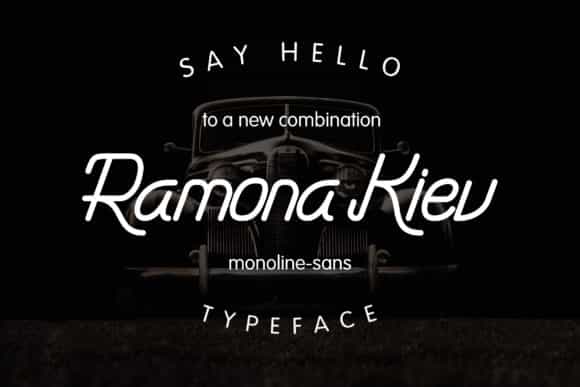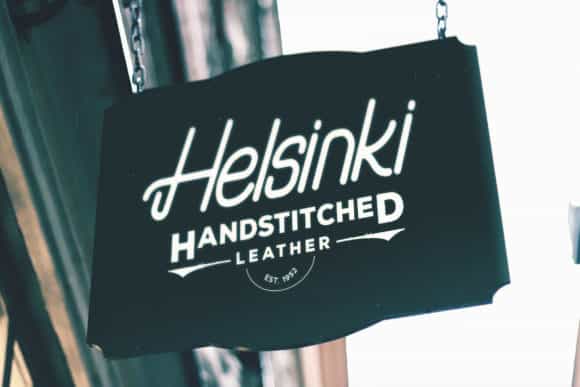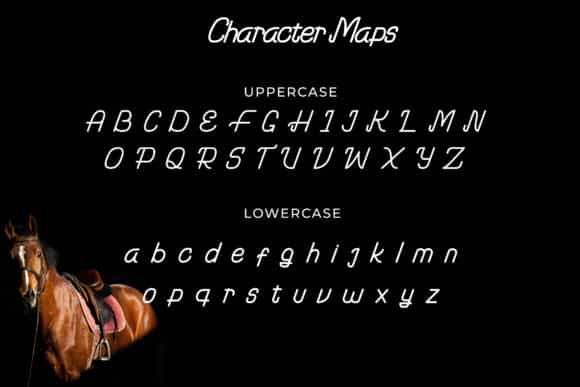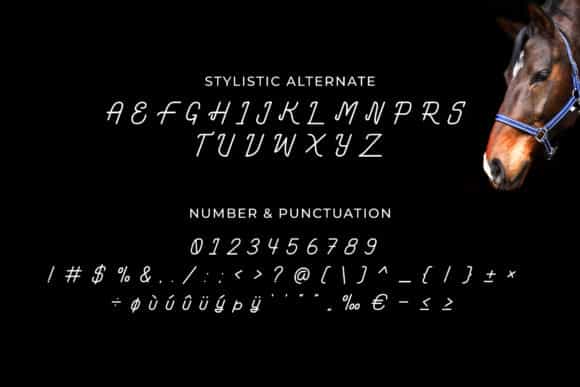
Discover Ramona Kiev Monoline Font, part of the Sans Serif Handwritten Monoline collection—a versatile and unique font perfect for adding a personal touch to your projects. Download it for free and enjoy crafting designs with style, from invitations to social media posts. This font is available exclusively for personal use, giving you the freedom to create without limits. Unlock your creativity with Ramona Kiev Monoline Font today!
Ramona Kiev is an fresh monoline font that exudes a style. It is perfect, for applications such as logos, posters, apparel, branding, wedding invitations, cards, taglines, layout designs and more!